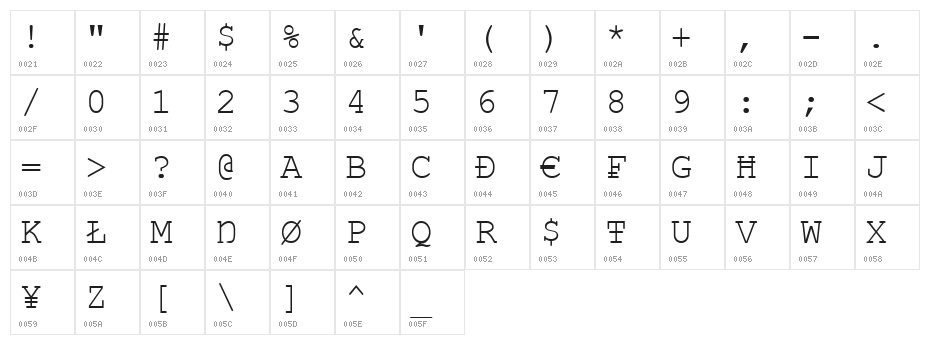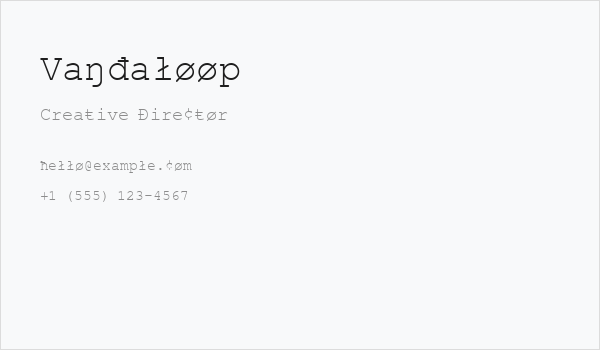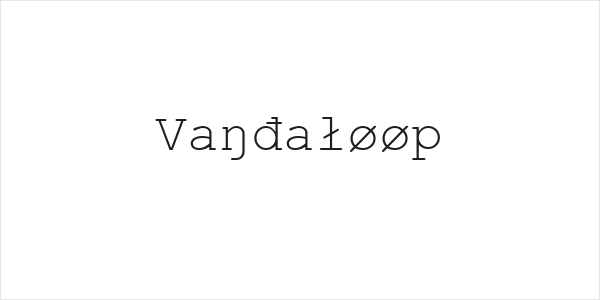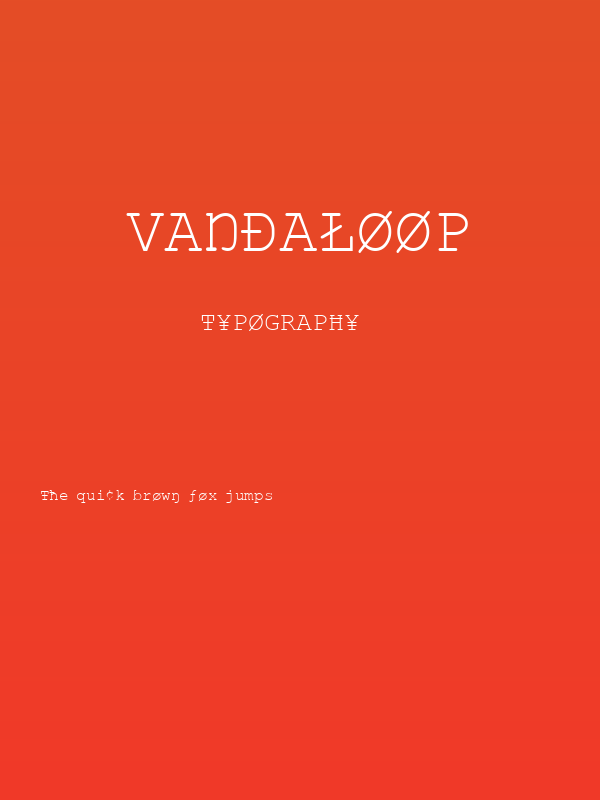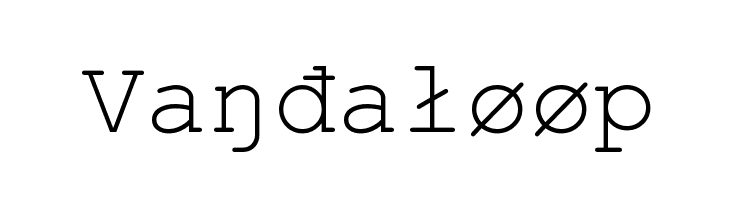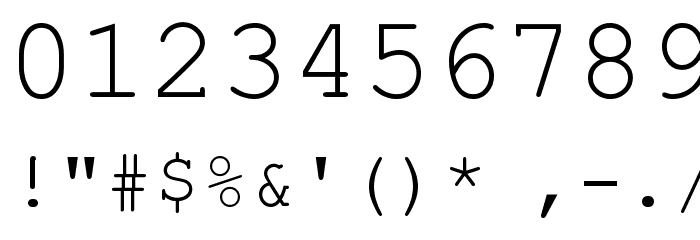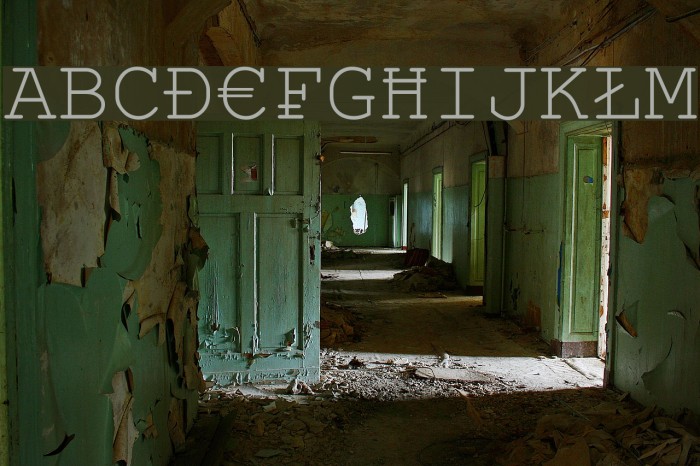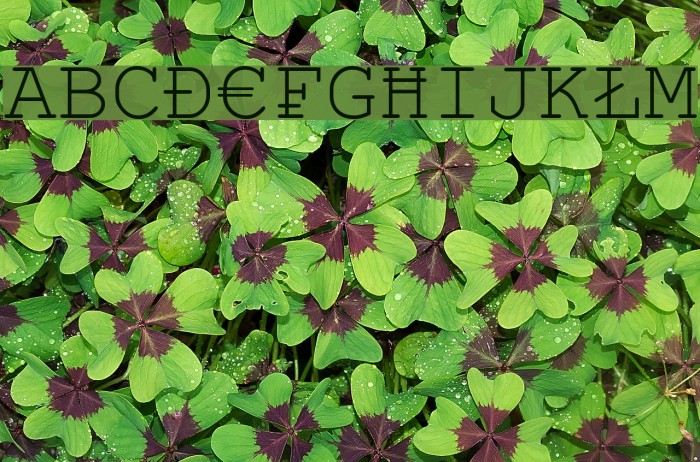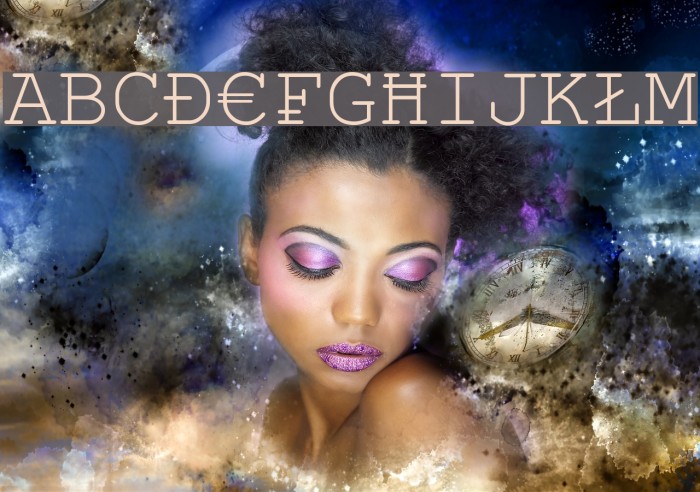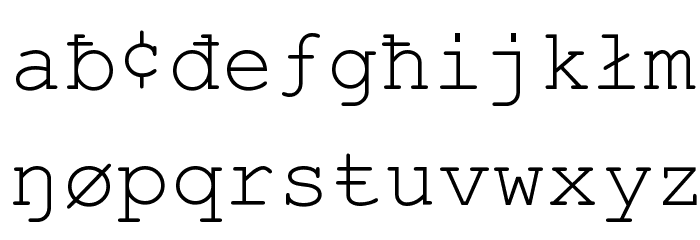
Vandaloop Font
Vandaloop Description
This font features a clean and modern design with a monospaced style, characterized by consistent spacing between each character. The letters are simple and geometric, with a slight touch of elegance due to the subtle curves and straight lines. The uppercase and lowercase letters maintain a uniform appearance, while the numerals are clear and easy to read. Special characters are well-defined, adding versatility to the font. The overall look is minimalistic, making it suitable for a variety of applications where clarity and precision are essential.
| Use Case | Coding, Technical documentation, Minimalist design |
| Proposed Projects | Ideal for coding environments, technical documentation, and minimalist graphic design projects. |